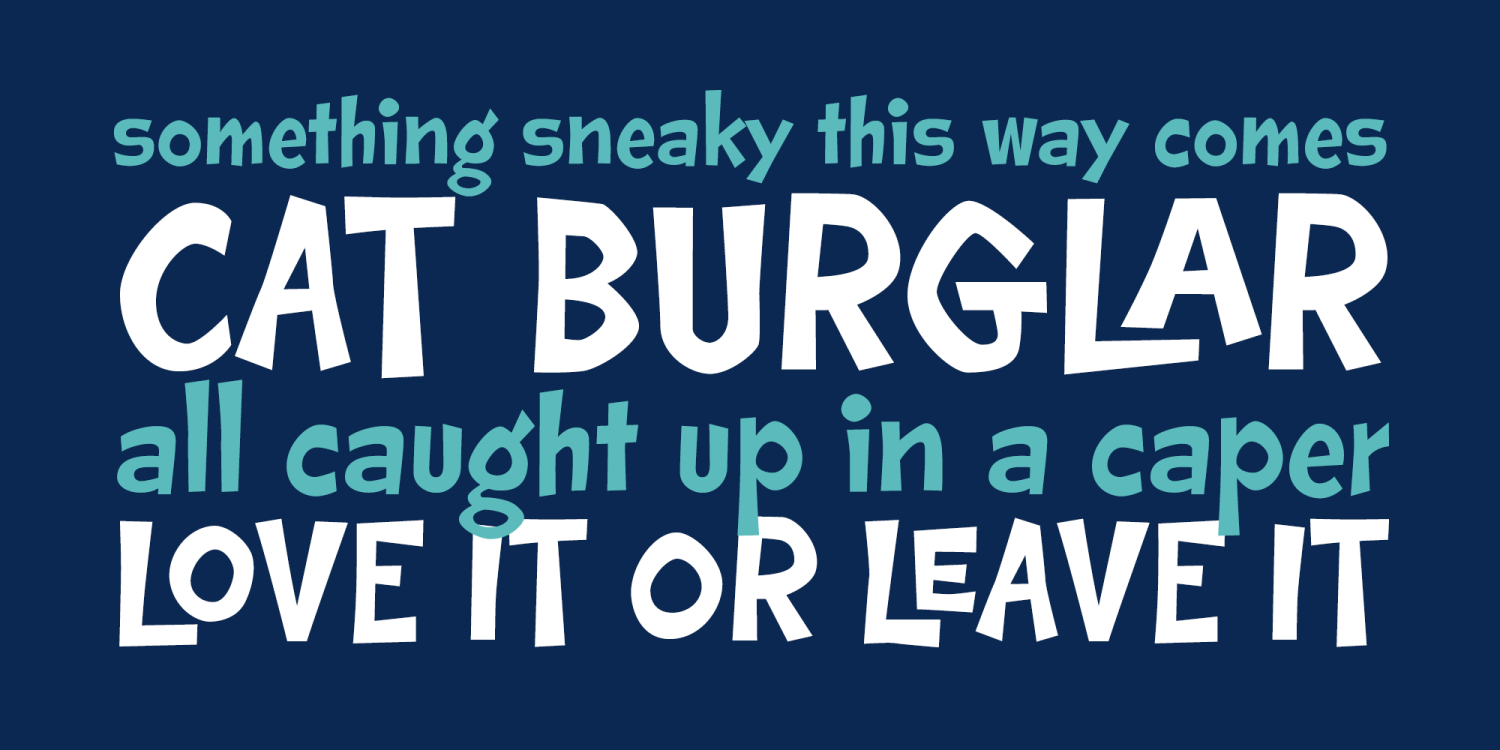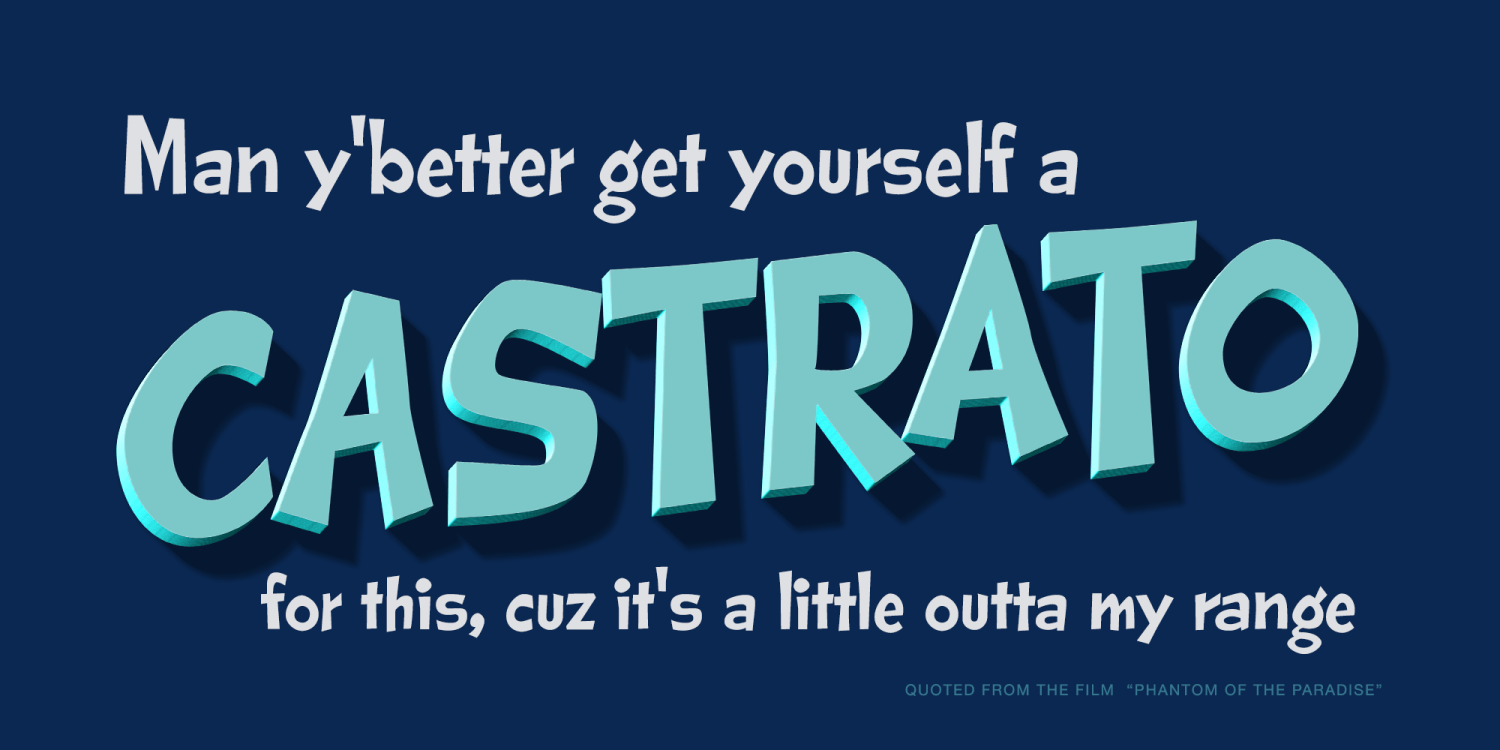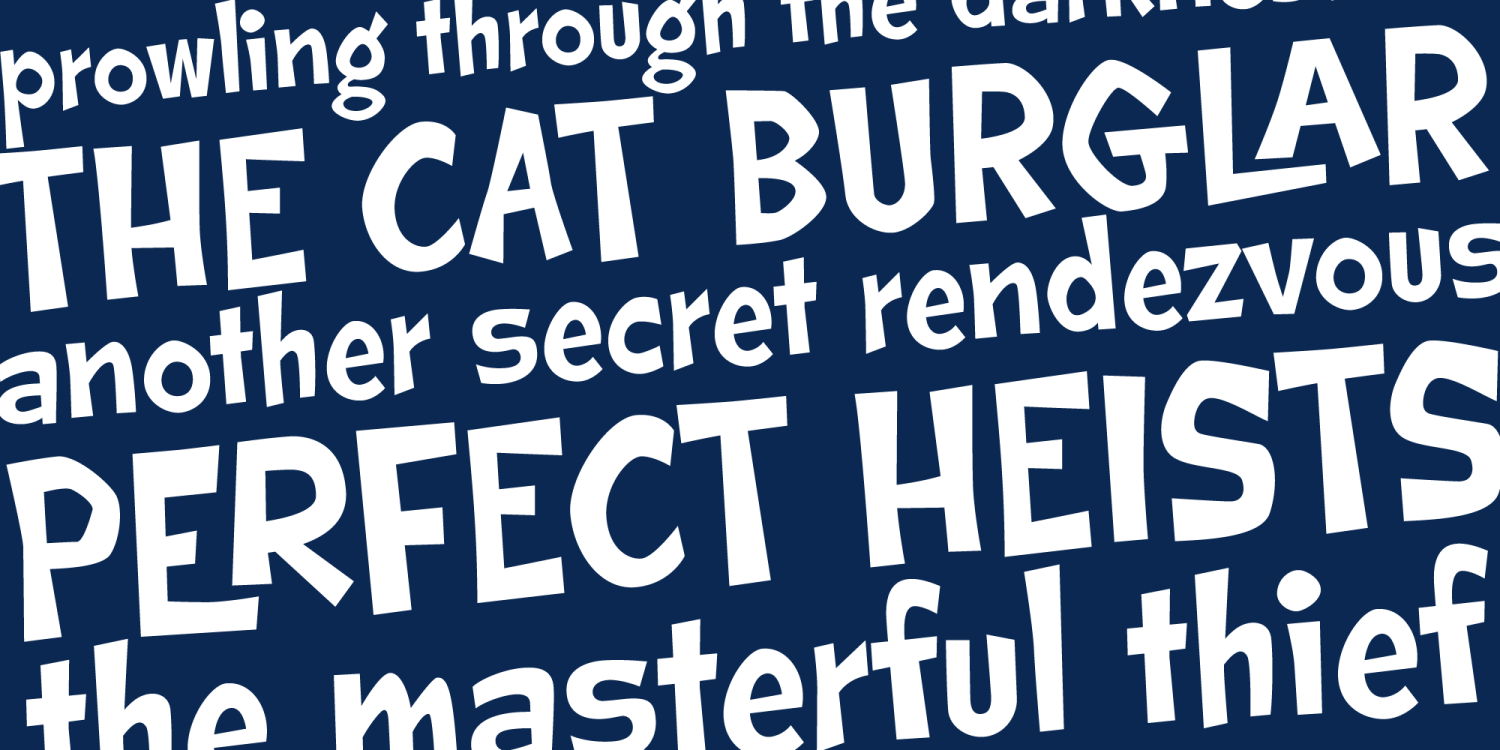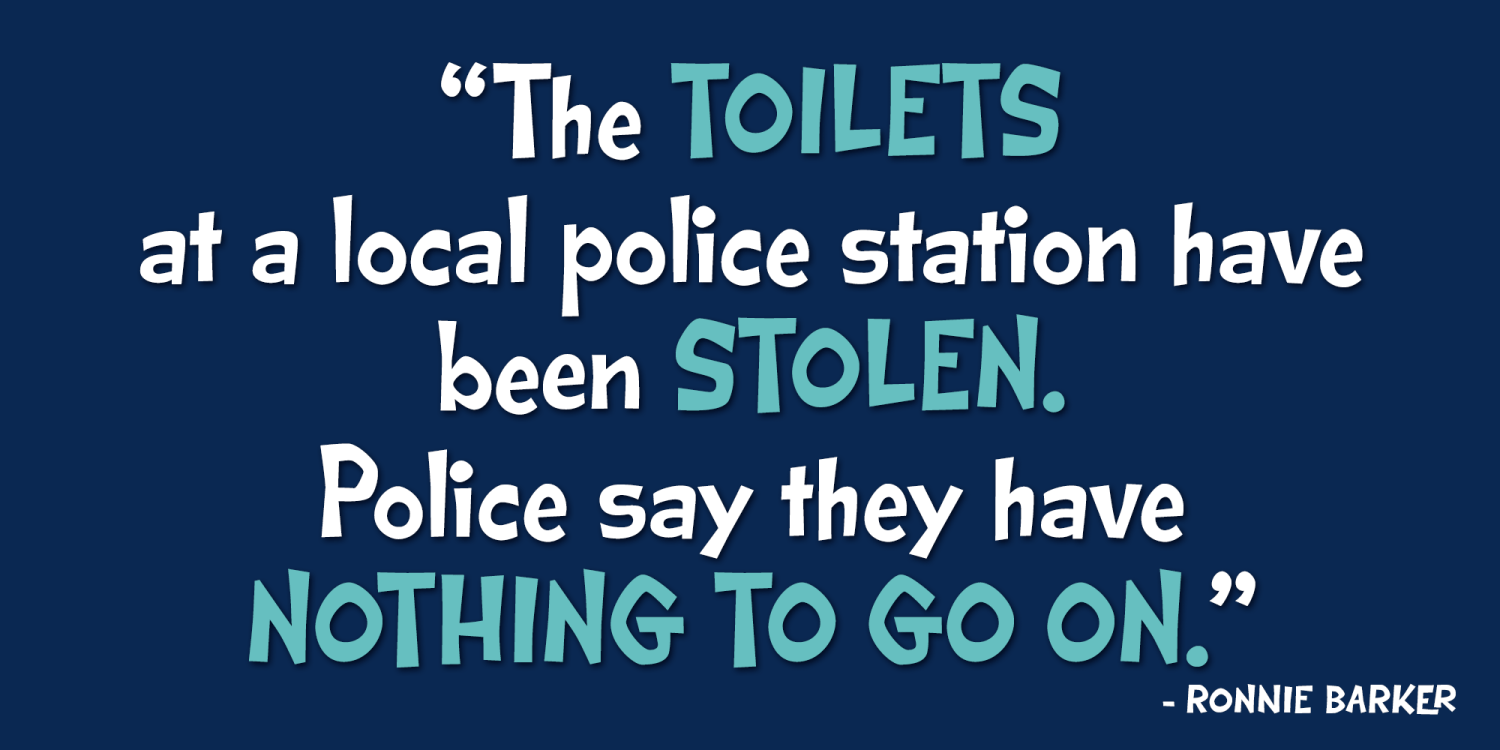
Cat Burglar
Cat Burglar is another off-kilter sans-serif font by Pink Broccoli, this time inspired by the titling of a 1961 Looney Tunes cartoon called "The Pied Piper of Guadalupe". As with some of my previous type designs, it is a typographic drunken stumble, wonderfully and awkwardly stumbling across designs, surprising with each letter typed.
With an extensive character set, and offbeat letter weighting, Cat Burglar is fun to typeset with, with a collection of double letter ligatures, as well as discretionary ligature combinations that add to the quirky playfulness.